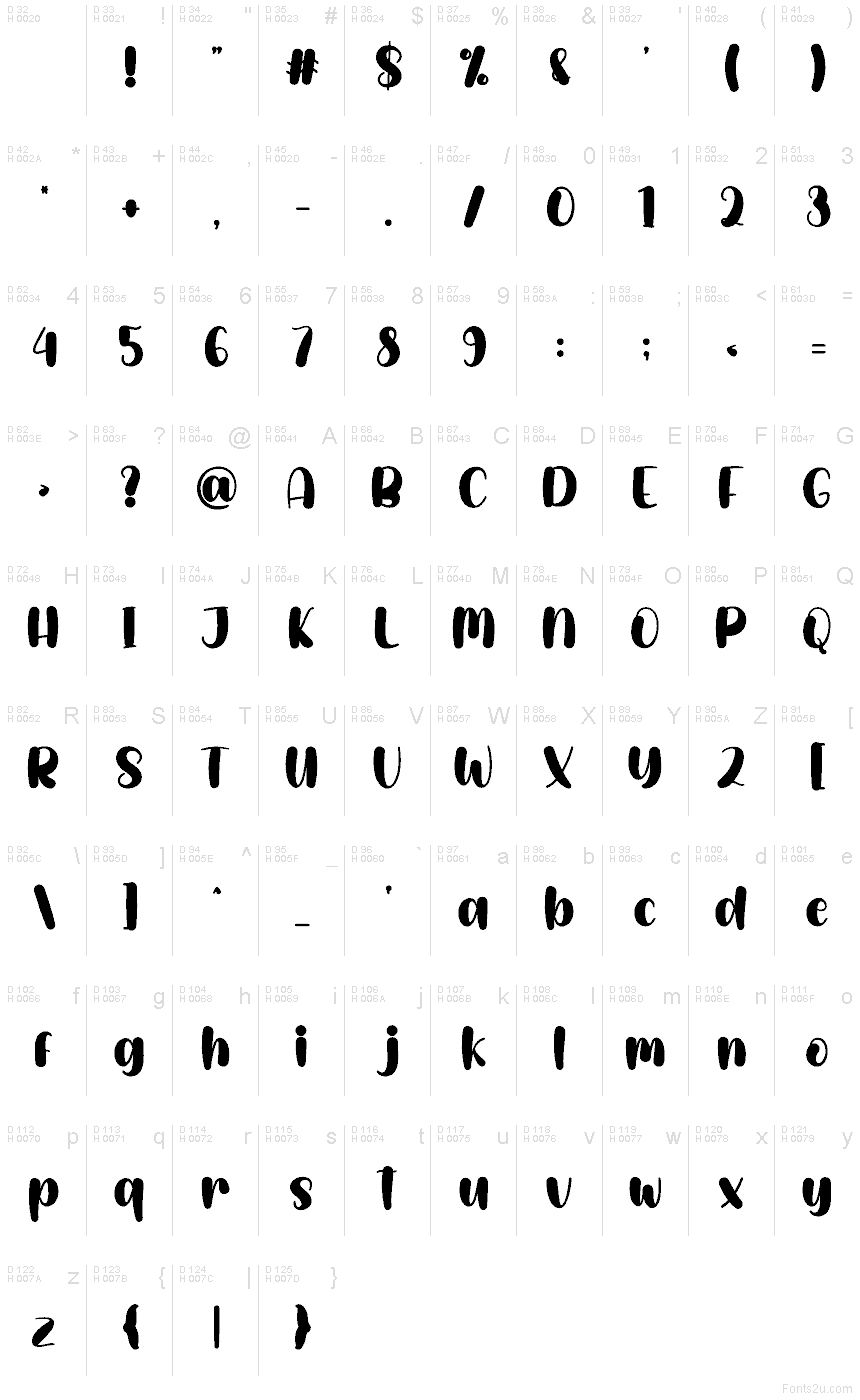
Wintering Ground
Wintering Ground font designed by Scratchones is a free brush font with bold strokes and a subtle faded texture. Natural uneven curves combine with letters' brush-like effect to give the typeface it's always-present informal look. For creating typoctaohy where liveliness and casualness are desired, go no further beyond Wintering Ground.
Use it in designing product packaging where the choice of such a unique yet decorative font adds a special element that users can appreciate. Hollywood movie posters, video game covers, books (especially ones related to art), artist websites and blogs of different natures are examples where this typeface will definitely work!